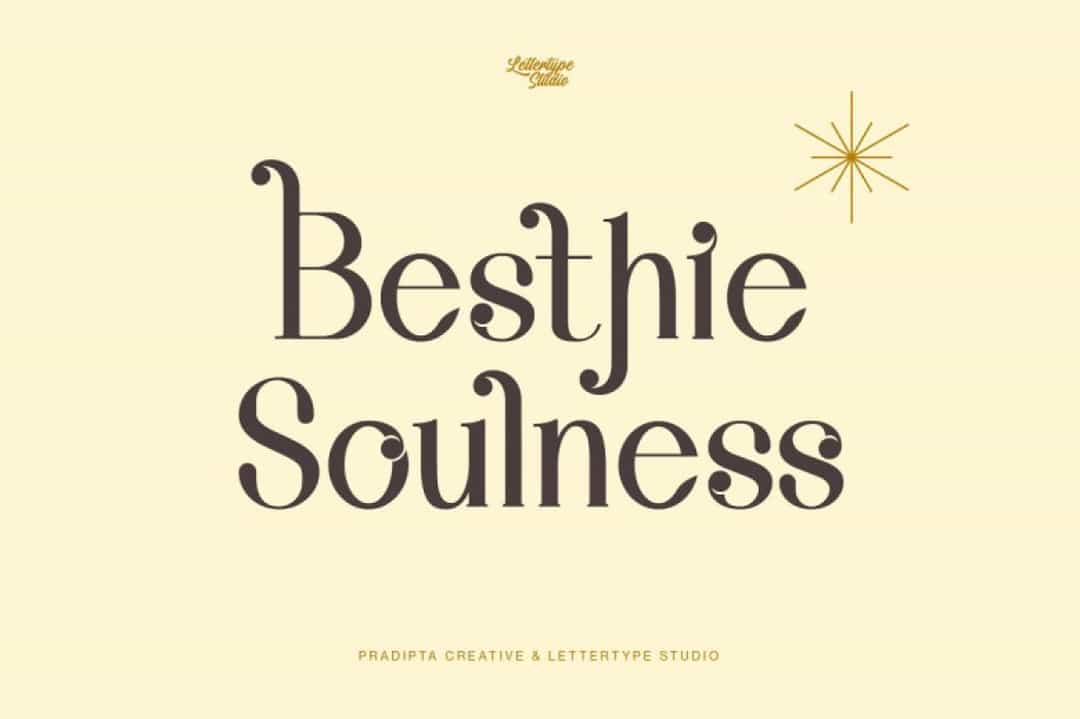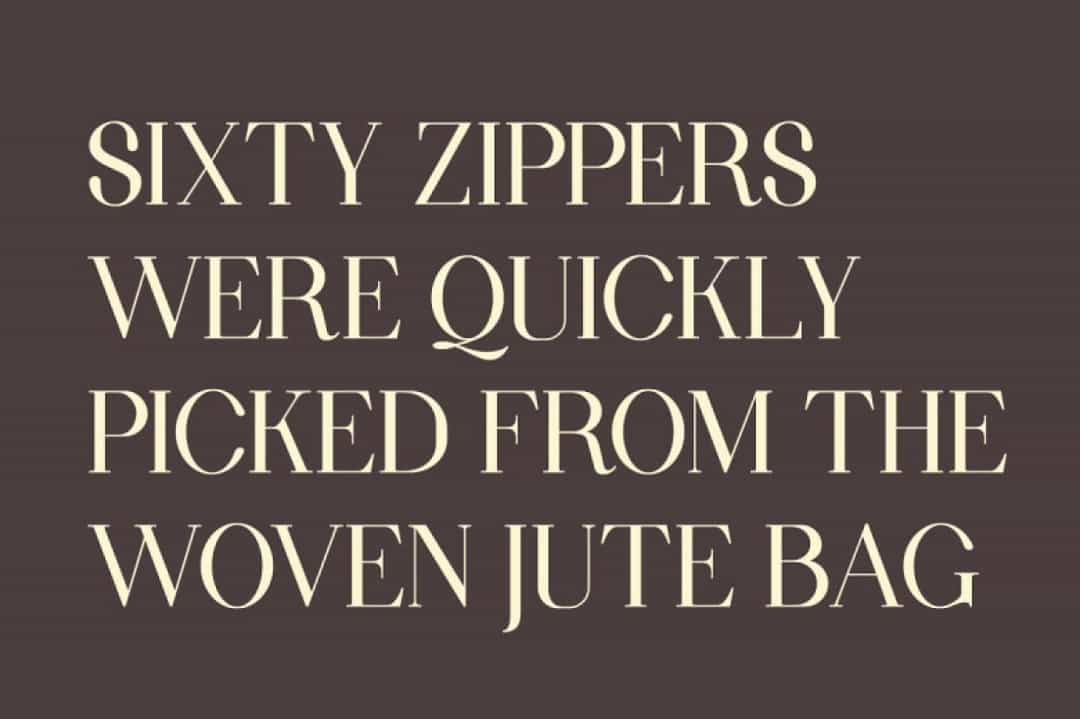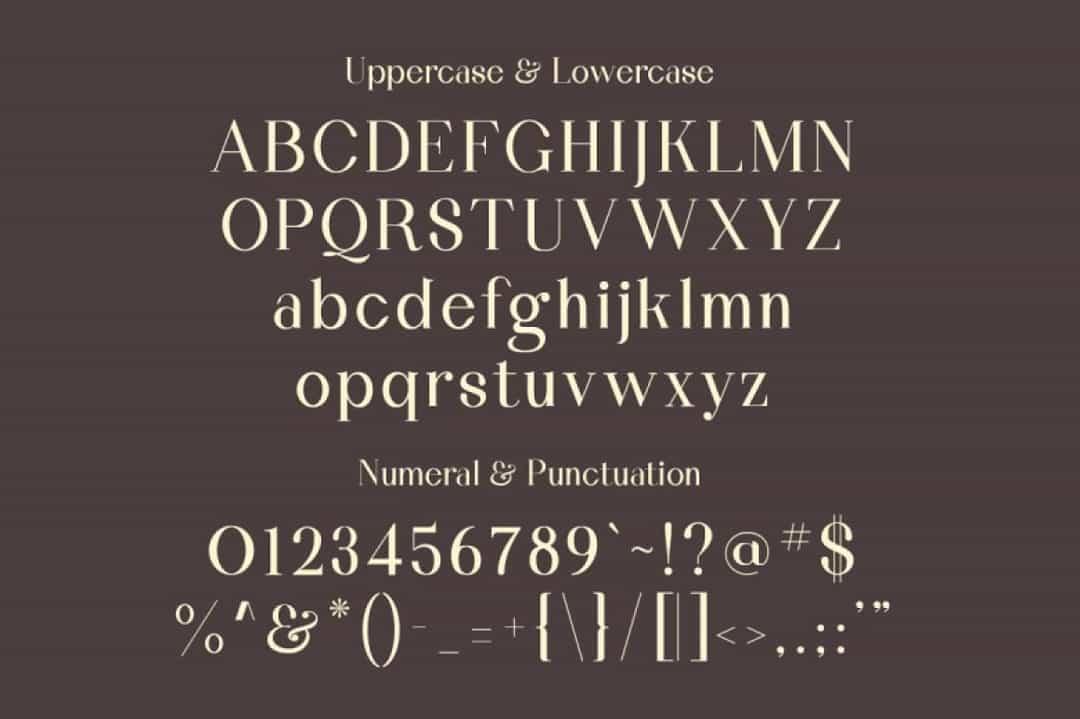
Besthie Soulness was designed as an elegant traditional, timeless, and contemporary serif font with many stylistic options available to it. Ideal for designing logos as well as branding clothing posters signage wedding invitations fashion cosmetics or more! Besthie Soulness can give any brand or project an elegant, classic and contemporary aesthetic.